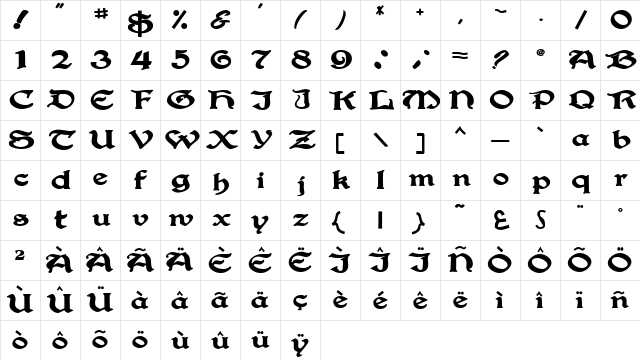
Complete Pirate Bold glyph index. Displaying only characters natively supported by Pirate Bold font.
Pirate is a composed and adaptable typeface that performs quietly and consistently across a wide range of design contexts. Its bold stroke weight gives it real presence on the page.